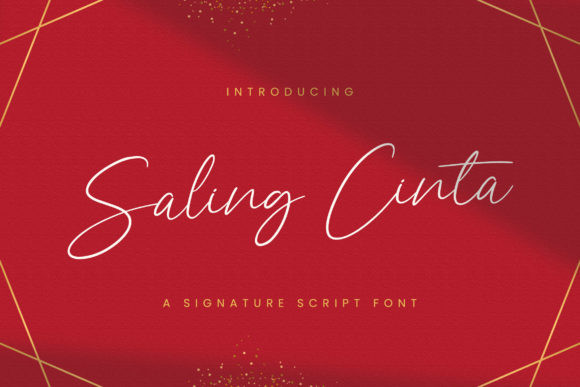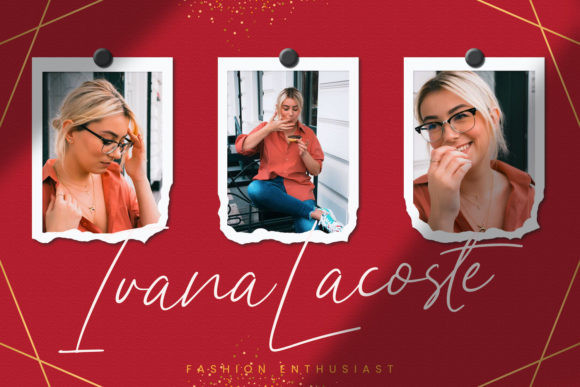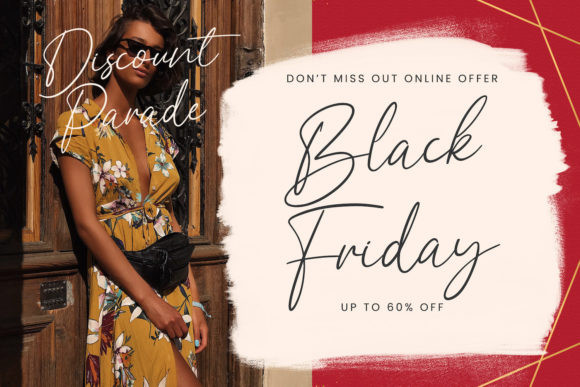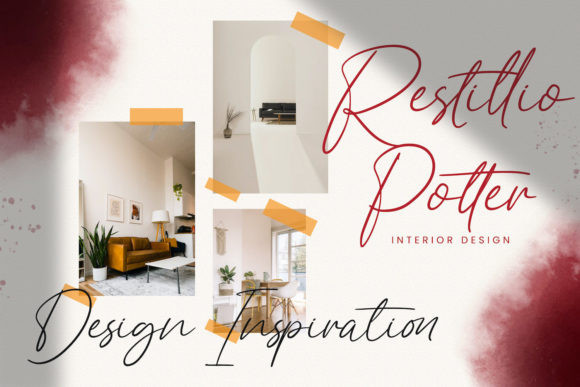
Saling Cinta Font
Saling Cinta FontSaling Cinta is a sweet and cursive script font. It looks ravishing on every design which needs a personalized touch.
Fall in love with its incredibly versatile style and use it to create spectacular designs!